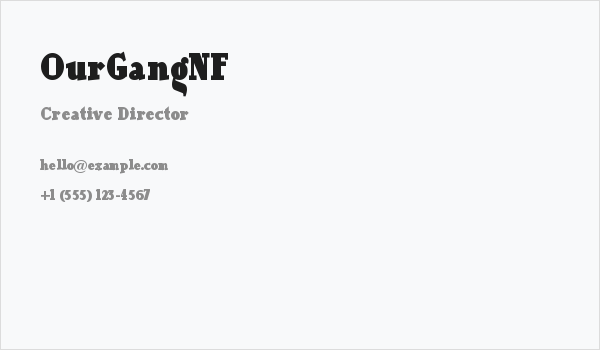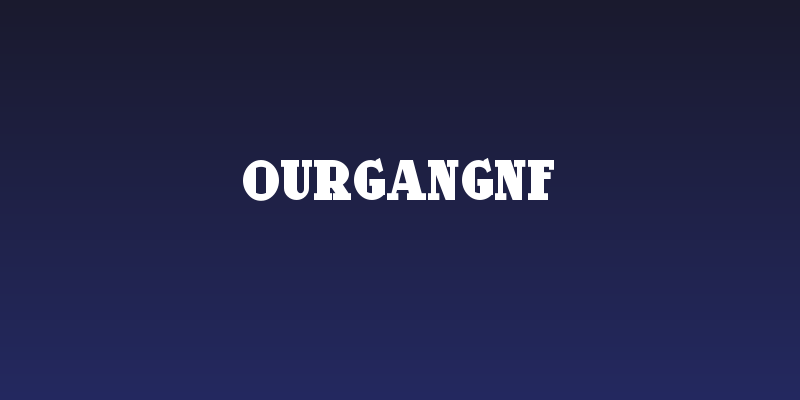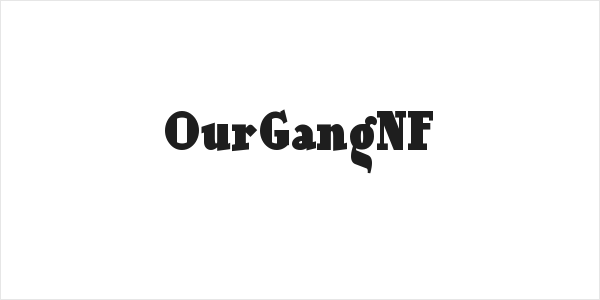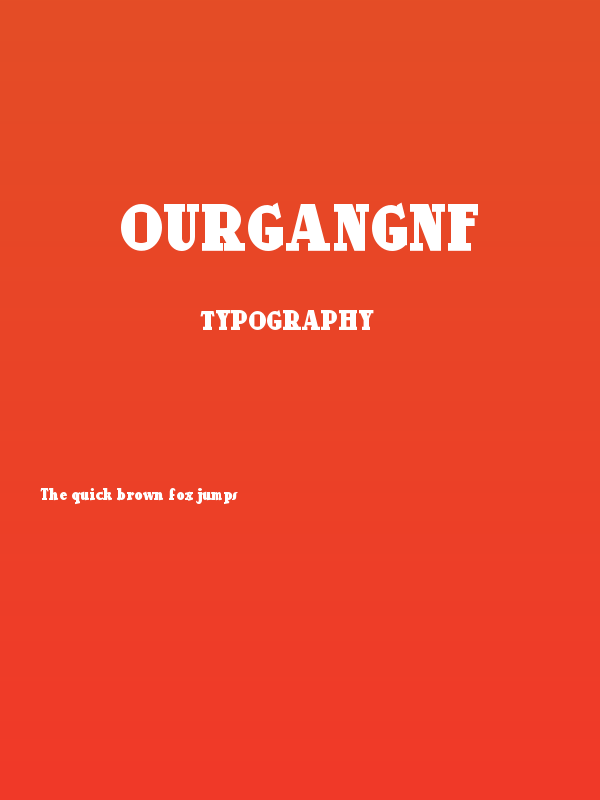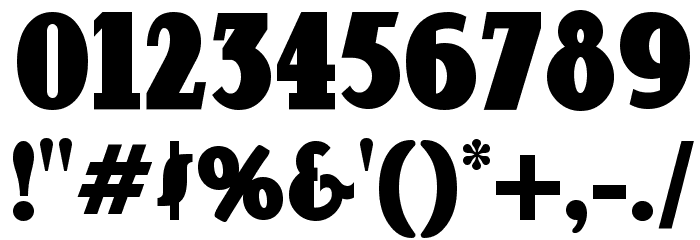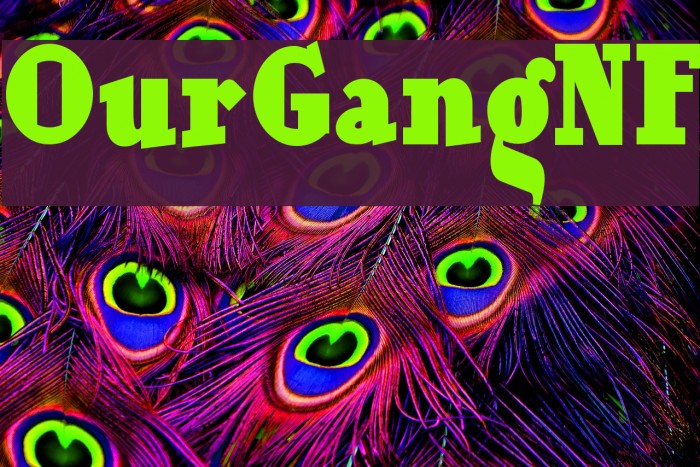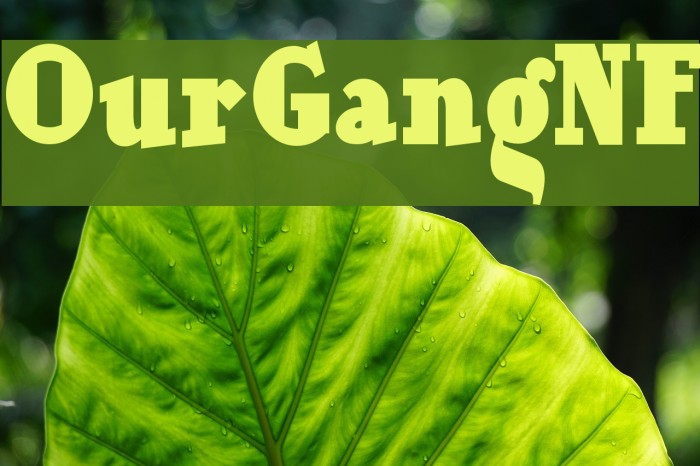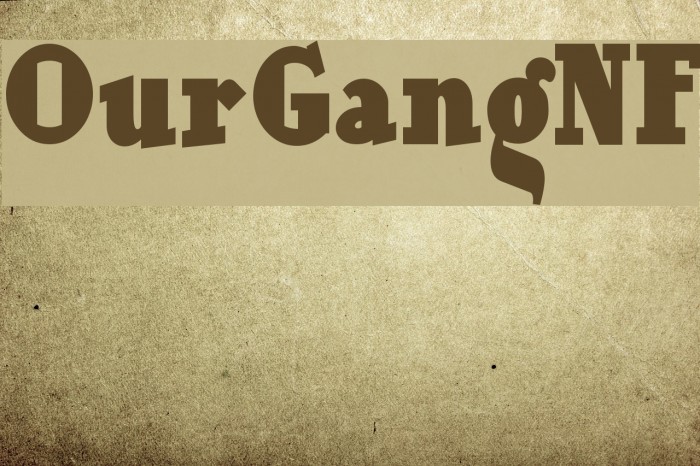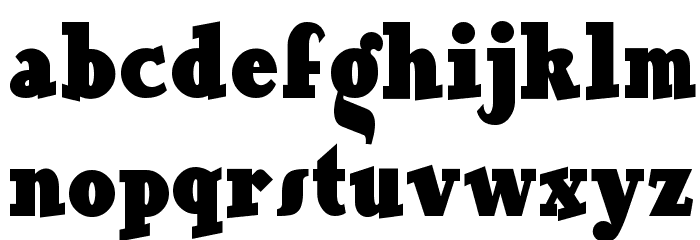
OurGangNF Font
OurGangNF Description
This font features a bold and playful style with a strong presence. The characters are thick and have a slightly condensed appearance, giving them a robust and impactful look. The uppercase letters are particularly striking, with a unique flair that adds a touch of whimsy. The lowercase letters maintain the same boldness, ensuring consistency throughout the typeface. Numbers and special characters are equally bold, making them stand out. This font is ideal for projects that require a fun and eye-catching design, such as posters, headlines, and branding materials.
| Overall Style | Playful, Bold |
| Proposed Projects | Ideal for posters, headlines, branding, and any project needing a bold, playful touch. |